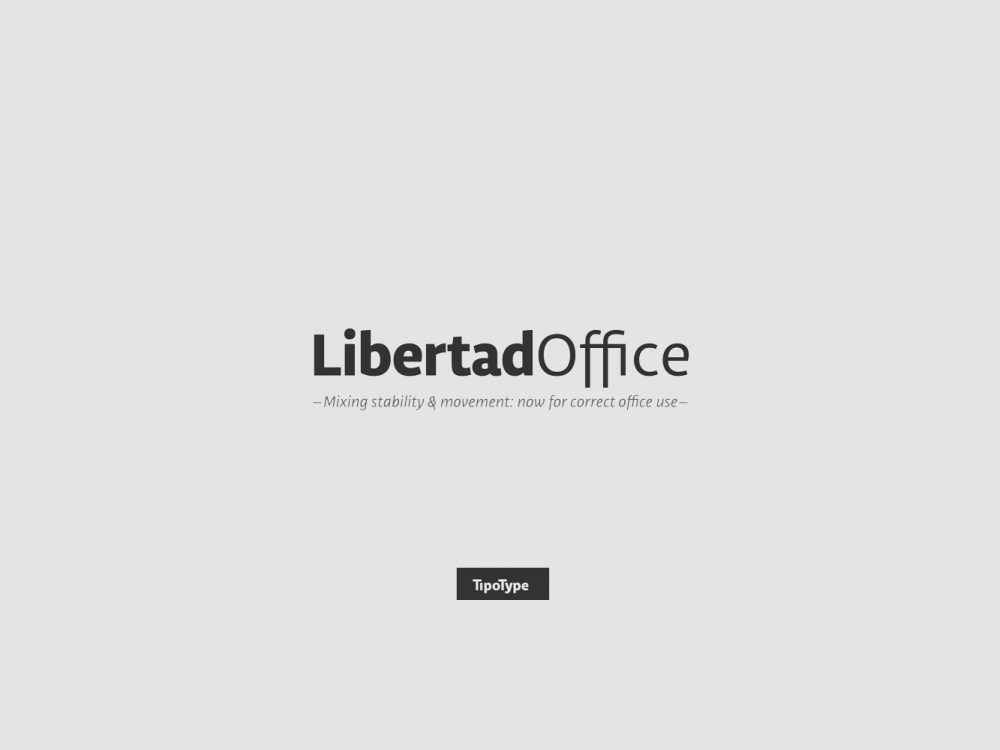
Libertad Office Free Font
Libertad Office Free Font is an interesting typeface that is made in a grotesque style and is distinguished by bold lines. This font will do very well for the creation of various design projects requiring the Sans Serif font. These can be posters, cards, invitations, flyers, prints, and much more. For commercial use please buy the full version.